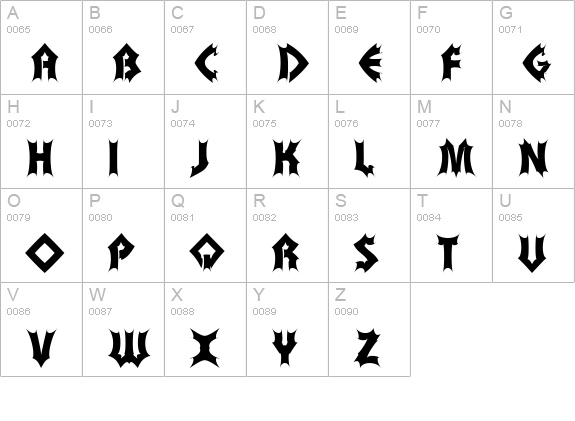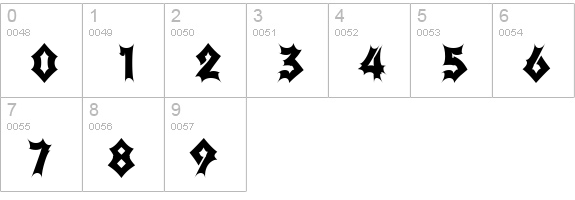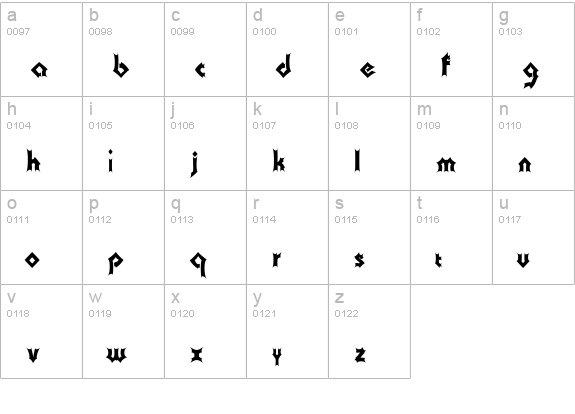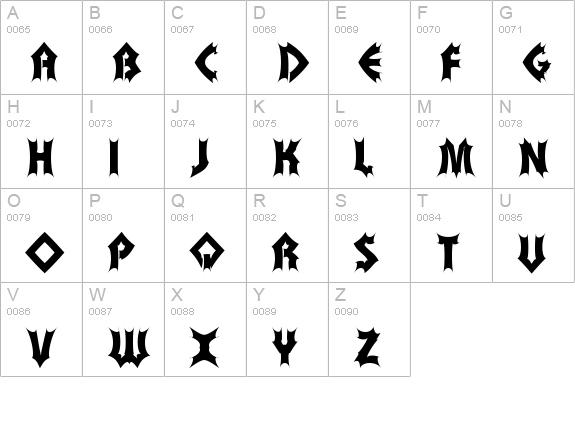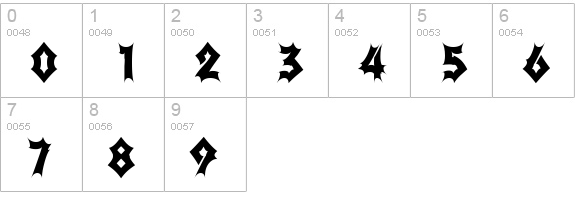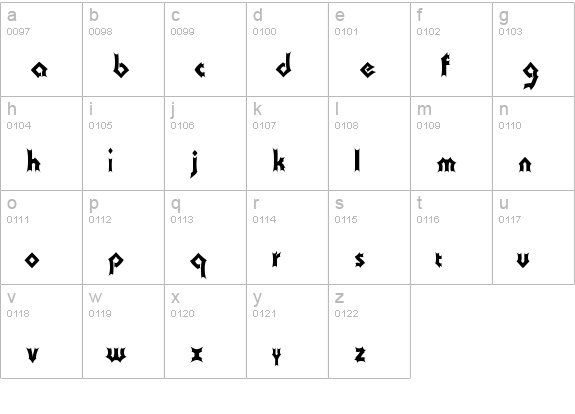
Transylvania Font Details
Transylvania font is a visually captivating typeface that exudes an air of mystery and enchantment. With its unique and intricate design, this font is sure to captivate the imagination and add a touch of magic to any project. Featuring bold and elegant letterforms, Transylvania font is perfect for headlines, logos, branding, and other creative endeavors. Its timeless appeal makes it suitable for a wide range of applications, from gothic-inspired designs to Halloween-themed projects. One of the most remarkable aspects of Transylvania font is that it is available for free download at FontsMarket.com. This means that users can easily access and utilize this stunning font without any cost. Whether you are a professional designer or a creative enthusiast, the availability of Transylvania font for free allows you to explore your creativity without any limitations. This font not only stands out for its aesthetic appeal but also for its versatility. Its legible letterforms ensure easy readability, while its unique design elements add a touch of personality and individuality to any text. Whether you are designing a poster, creating a website, or crafting an eye-catching social media post, Transylvania font is the perfect choice to make a lasting impression. With its freely available download option at FontsMarket.com, Transylvania font opens up a world of creative possibilities for designers and enthusiasts alike. Whether you are working on personal projects or professional assignments, this font allows you to bring your ideas to life with a touch of elegance and charm. So, unleash your creativity and download Transylvania font today. Immerse yourself in the enchanting world of typography and let this captivating typeface elevate your designs to new heights. Embrace the allure of Transylvania font and transform your projects into works of art that leave a lasting impression.